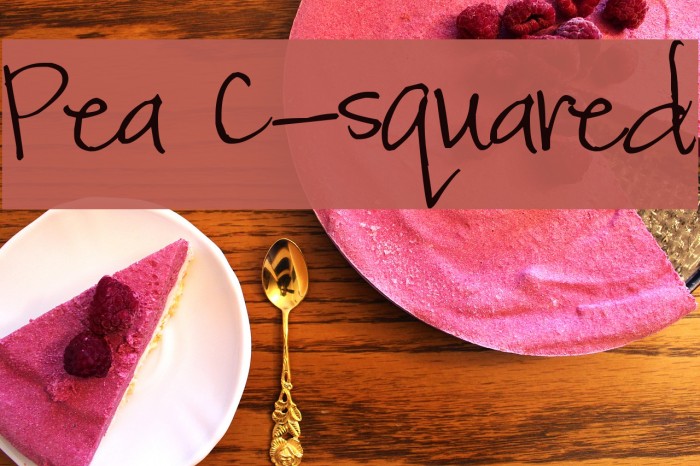
Pea C-squared Font
This font exudes a casual and playful handwritten style, characterized by its loose and flowing strokes. The letters are slightly slanted, giving it an informal and relaxed appearance. The uppercase and lowercase letters maintain a consistent style, with rounded edges and a slightly uneven baseline, adding to its charm. The numerals and special characters follow the same whimsical design, making it suitable for projects that require a personal touch. The overall look is friendly and approachable, perfect for creative and informal applications.
A casual, playful handwritten font with flowing strokes and a relaxed style.
- Proposed Projects: Ideal for personal notes, greeting cards, children's books, and creative branding.
- Overall Style: Casual, Playful
- Use Case: Headlines, Informal text, Creative projects